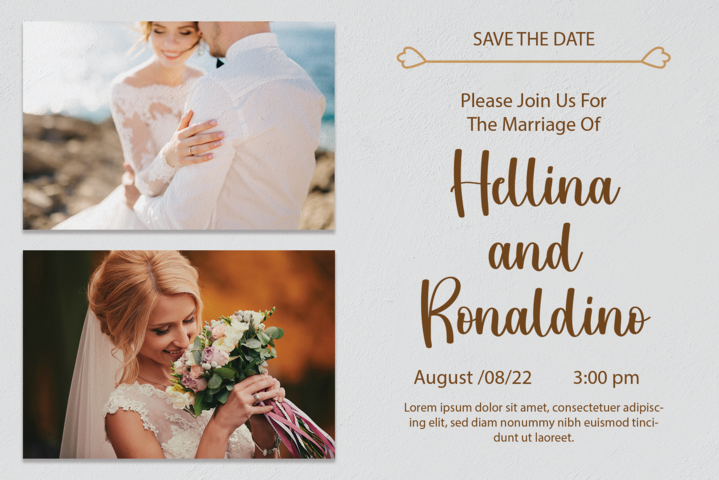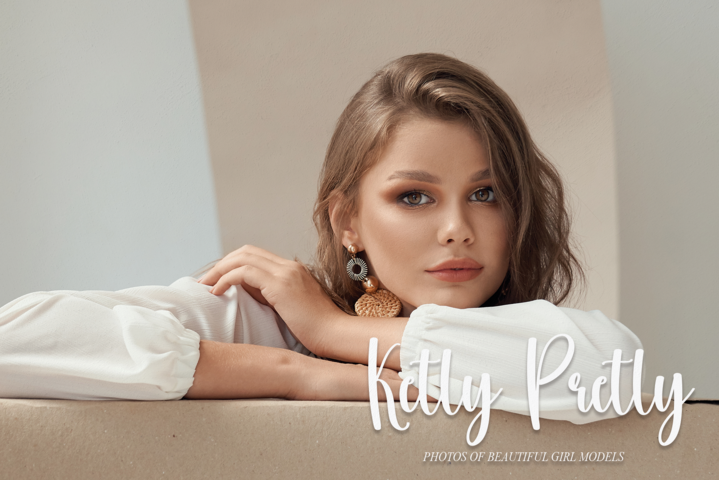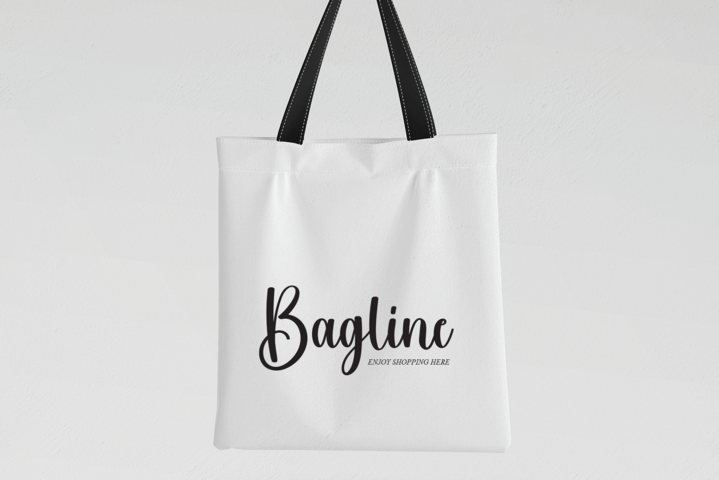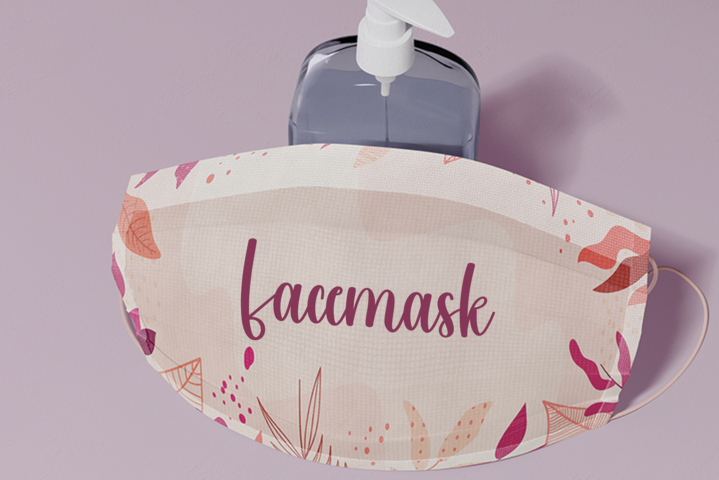
Handmade Typeface
Handmade Script Typeface
This is a thin and natural handwritten font. Whimsical and a bit quirky, this font will brighten up each of your designs. Add it confidently to your projects, and you will love the results.
the latest style letters are perfect for wall displays, wedding invitations, social media post logos, advertisements, product packaging, product designs, labels, photography, watermarks, invitations, stationery, and any project that requires taste handwriting.